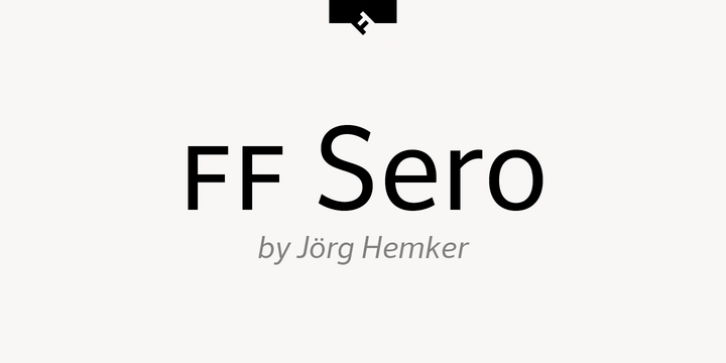
Publisher: FontFont
German type designer Jörg Hemker created this sans FontFont in 2011.
The family has 16 weights, ranging from Extra Thin to Black (including italics) and is ideally suited for advertising and packaging, editorial and publishing, logo, branding, wayfinding and signage as well as web and screen design.
FF Sero provides advanced typographical support with features such as ligatures, small capitals, alternate characters, case-sensitive forms, fractions, and super- and subscript characters.
It comes with a complete range of figure set options – oldstyle and lining figures, each in tabular and proportional widths.
As well as Latin-based languages, the typeface family also supports the Cyrillic and Greek writing systems.
In 2011, FF Sero received the CommArts award.